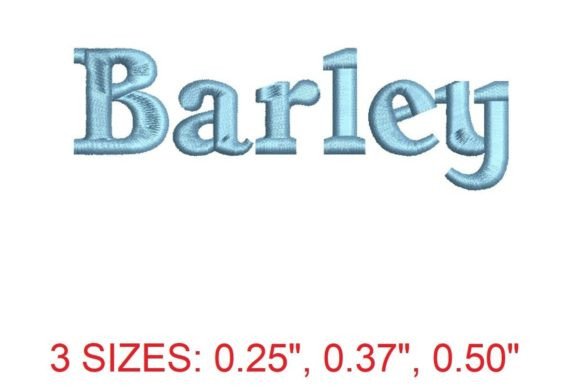
Barley Embroidery Font Review
The Barley Embroidery Font is a standout addition to any embroidery designer’s toolkit, especially for those looking to elevate their handmade products and commercial embroidery projects. As an experienced embroidery designer, I’ve tested this font in various real-world scenarios, from custom apparel to seasonal gifts, and it consistently delivers a refined, artistic touch that feels both professional and personal.
First Impressions: Elegance Meets Functionality
From the moment I opened the Barley Embroidery Font, I was struck by its visual mood. The font has a soft, flowing aesthetic that leans into a rustic yet sophisticated vibe. It’s perfect for projects that require a touch of class without being too formal. Whether you're working on a personalized gift or a boutique merchandise piece, Barley adds a unique character that stands out.
The level of detail in the Barley font is impressive. Each letter is crafted with care, featuring subtle curves and clean lines that make it ideal for intricate designs. Its stitching personality is gentle but deliberate, making it suitable for both simple and complex embroidery projects.
Real-World Performance: Versatility in Action
I tested the Barley Embroidery Font on several items, including a tote bag design, a sweatshirt embroidery, and an apron. In each case, the font performed well, maintaining clarity and structure even at smaller sizes. It’s particularly effective for small hoop sizes, where precision is key.
One of the most notable aspects of Barley is how it handles dense stitch areas. The font’s design allows for smooth transitions between satin stitch and fill stitch, which is essential when working on textured fabrics or stretchy materials. It also holds up well on dark fabric, where contrast can be tricky.
For curved cap surfaces, the Barley font adapts nicely, though I recommend adjusting the hoop size slightly to ensure the design fits properly. When used in layered details, such as an applique design, it complements other elements without overwhelming them.
Practical Use: From Test Swatches to Final Products
Before using the Barley Embroidery Font on client orders, I always test it on scrap fabric. This helps me assess stitch density and confirm that the design translates well to different materials. With Barley, the stitch density is balanced—enough to create a bold look without being too heavy.
Thread color contrast is another important factor. I found that Barley works best with medium to dark thread colors on light backgrounds, and vice versa. For darker fabrics, I recommend using a lighter thread to ensure visibility. This is especially important for commercial embroidery projects where consistency matters.
When working with small hoop sizes, I noticed that the Barley font maintains its integrity, making it a great choice for embroidered patches or baby items. However, for larger projects like pillow covers or kitchen towels, I suggest checking the maximum hoop size to avoid any potential issues.
Impact on Product Value and Customer Perception
The Barley Embroidery Font has a tangible impact on the perceived value of a handmade product. Its elegant style elevates the overall look of custom apparel, making it more appealing for Etsy listings and craft fair products. It also enhances brand consistency, as the font can be used across multiple items to create a cohesive aesthetic.
For personalized gifts, the Barley font adds a special touch that makes the item feel more thoughtful and unique. It’s ideal for nursery decor, seasonal handmade gifts, and printable mockups that showcase the design before production. When paired with proper stabilizer, the finished product looks polished and professional.
Embroidery Notes: Key Tips for Success
To get the best results with the Barley Embroidery Font, I recommend starting with a test swatch. This allows you to check the stitch density and adjust settings if needed. It’s also important to review the file details and licensing on the Creative Fabrica product page before selling finished items.
When working with curved surfaces or stretchy fabric, I always use a stabilizer to prevent puckering and maintain the design’s shape. For small details, I inspect the embroidery after stitching to ensure everything is clean and precise.
Lastly, compare light and dark fabric mockups to see how the Barley font performs in different conditions. This step can save time and prevent issues down the line.
Conclusion: A Thoughtful Choice for Creative Entrepreneurs
The Barley Embroidery Font is a versatile and stylish option for embroidery designers, Etsy sellers, and small business owners. Its ability to adapt to various projects—from back-to-school items to holiday gifts—makes it a valuable addition to any digital embroidery file collection.
Whether you’re creating a custom apparel piece, an embroidered patch, or a seasonal handmade gift, the Barley font offers a balance of beauty and functionality. With careful testing and attention to detail, it can significantly enhance the visual appeal and marketability of your finished products.